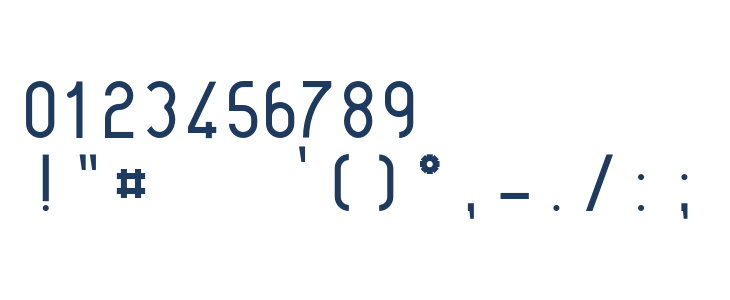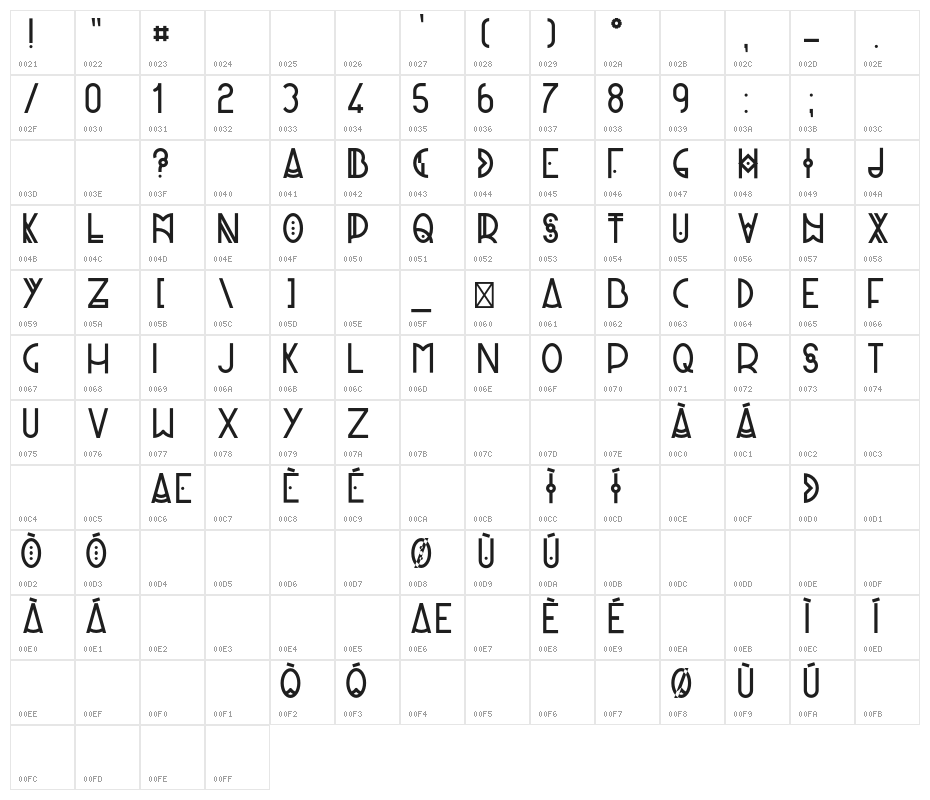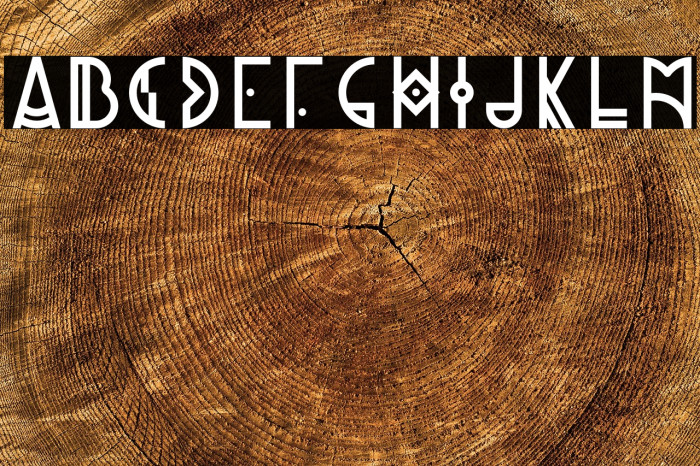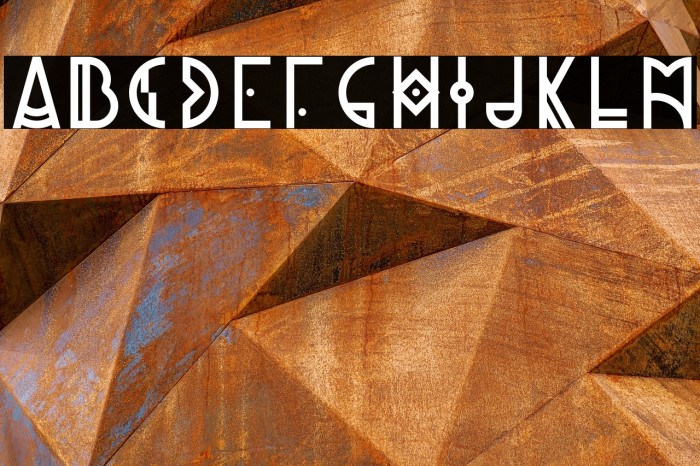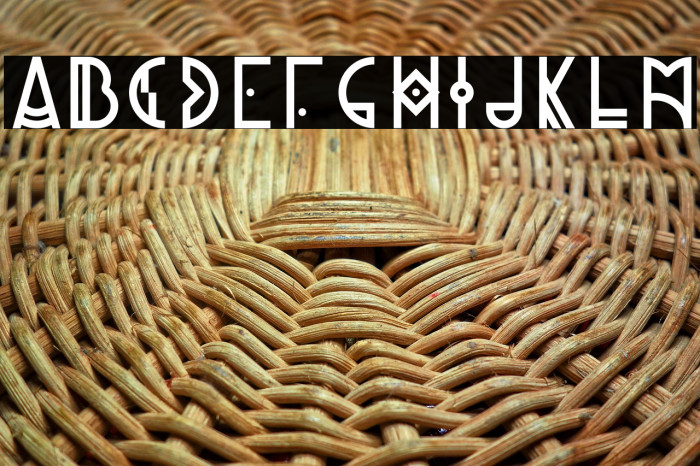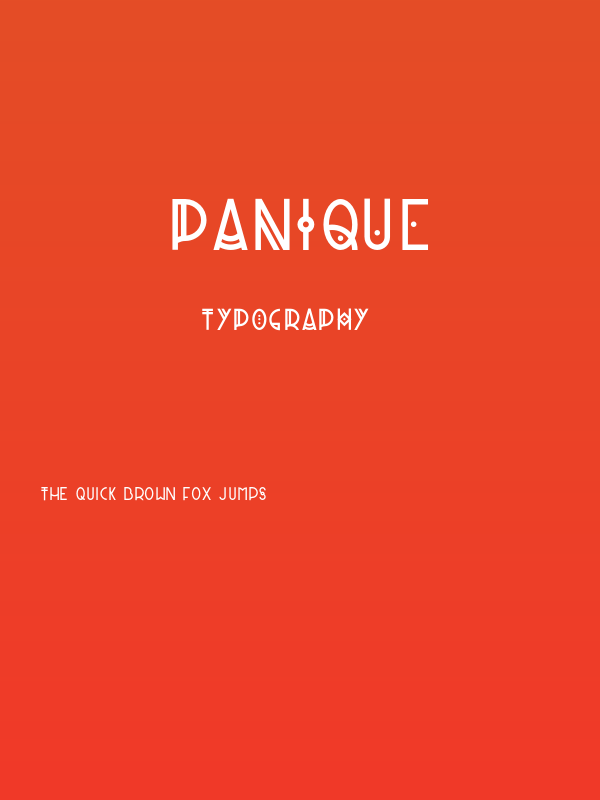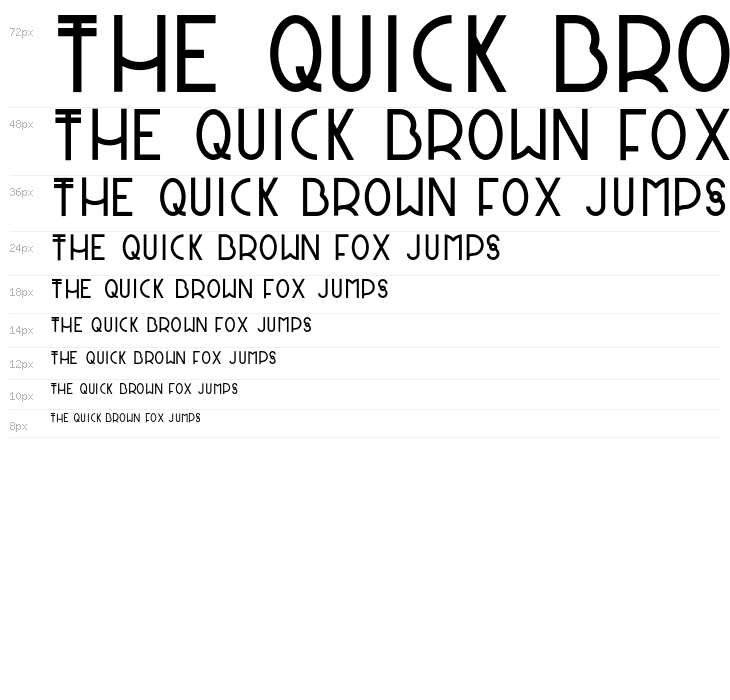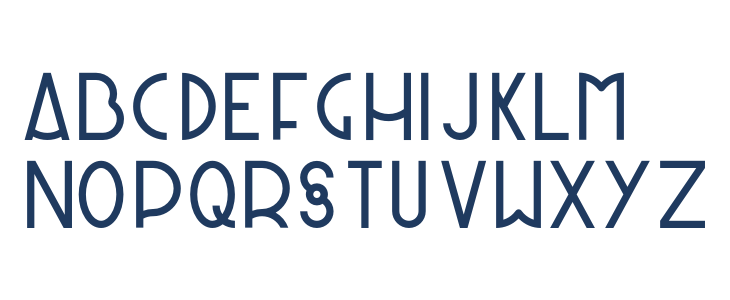
Panique Font
This font features a unique and artistic design with geometric elements and playful details. Each character incorporates distinct shapes, such as circles, triangles, and lines, creating a visually intriguing and modern appearance. The uppercase letters are particularly bold and striking, with some characters featuring dots or additional lines that add to their decorative nature. The lowercase letters maintain a consistent style, complementing the uppercase set with a slightly more subdued flair. Numbers and special characters follow the same geometric and artistic theme, making this font highly versatile for creative projects.
| Proposed Projects | Ideal for branding, posters, album covers, and any project requiring a modern, artistic touch. |